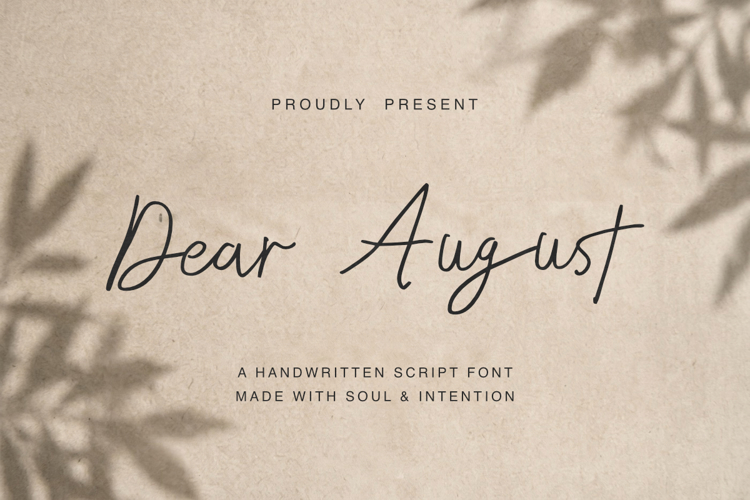
Dear August Font
Bring the intimacy of handwritten lettering to your next creative project with **Dear August**, a flowing script typeface designed for expressive typography and understated elegance.
With its graceful strokes, relaxed letter connections, and distinctive handwritten rhythm, Dear August captures the feeling of a personal letter, a quiet afternoon, or a thought carefully put into words. Its expressive forms lend warmth and individuality to every composition, making it a beautiful choice for designers seeking a script that feels genuine rather than overly formal.